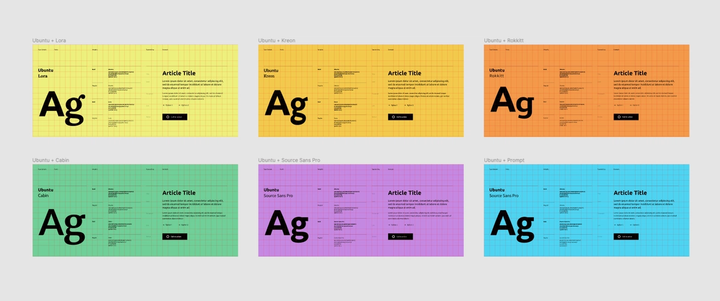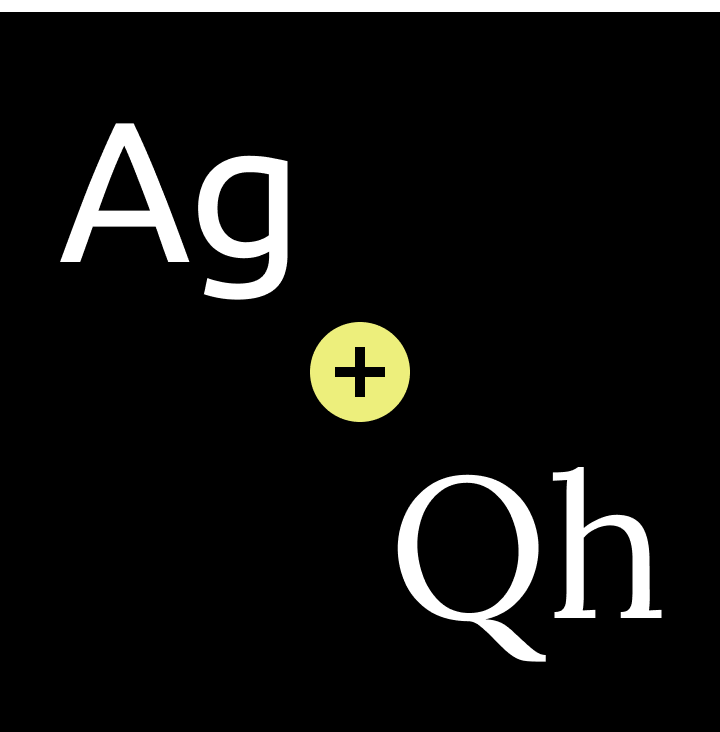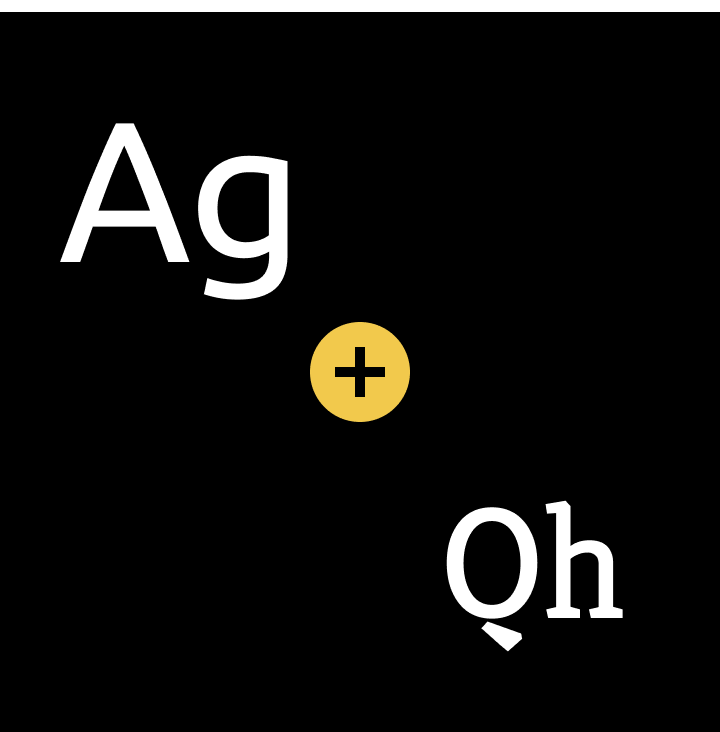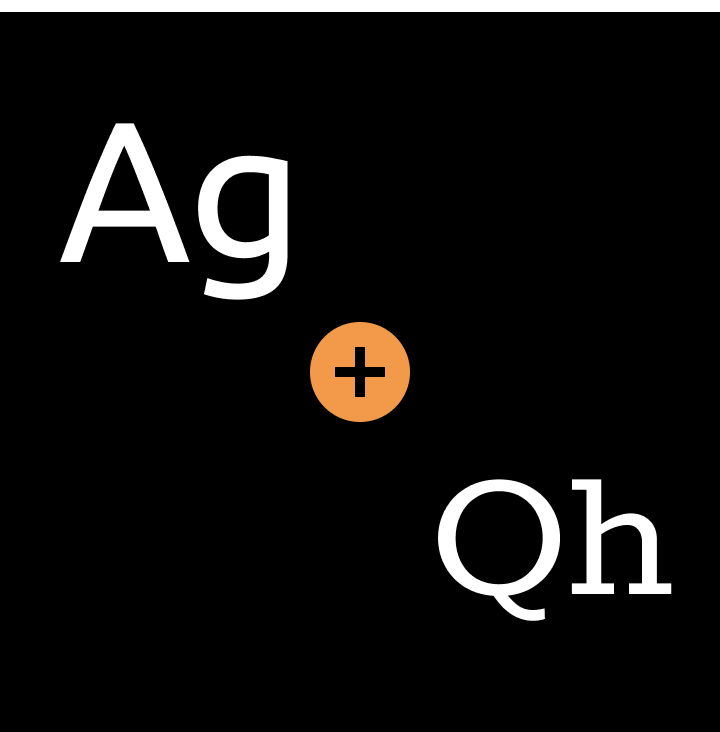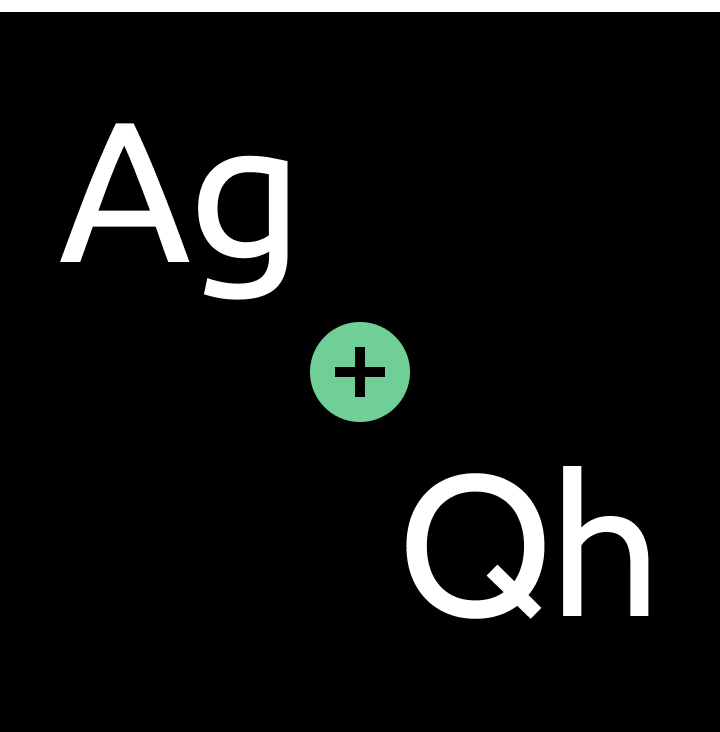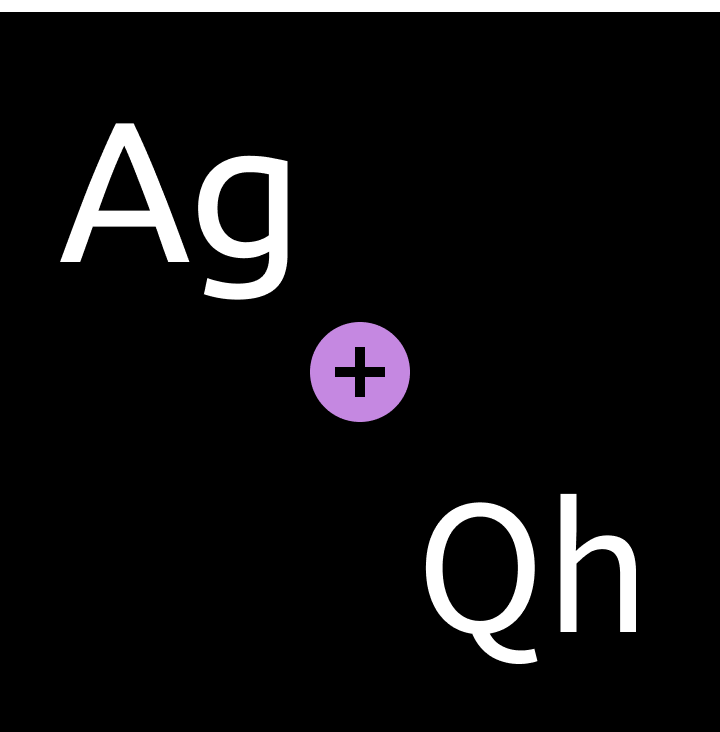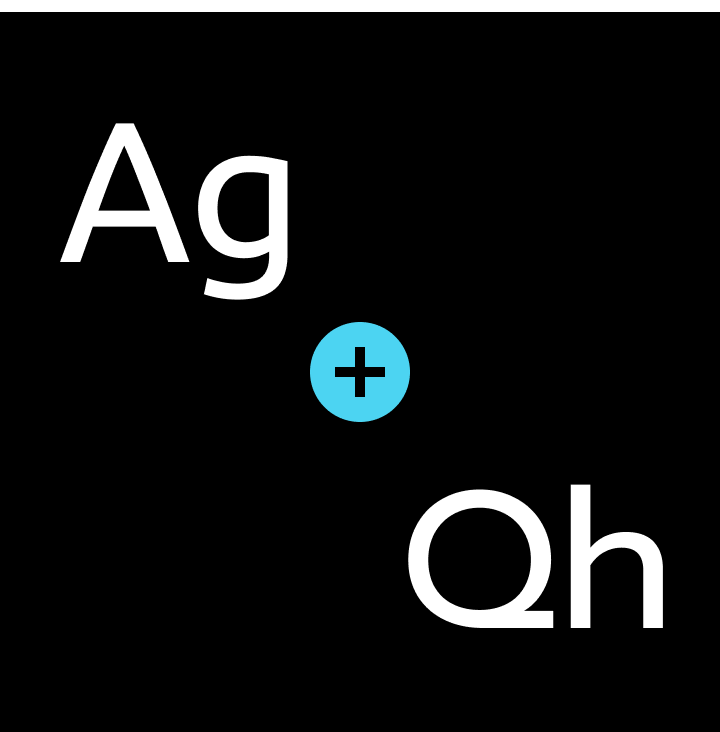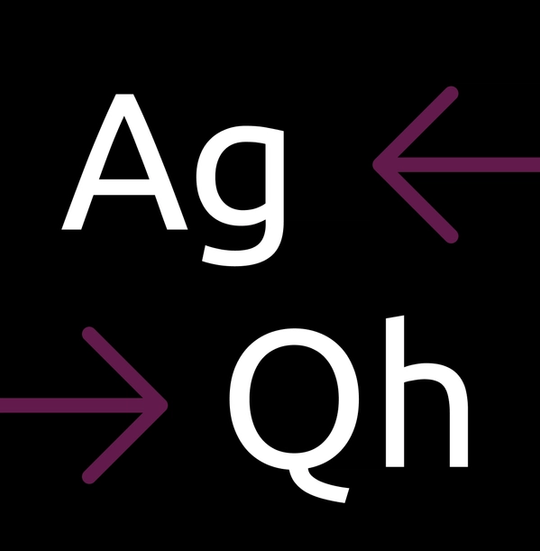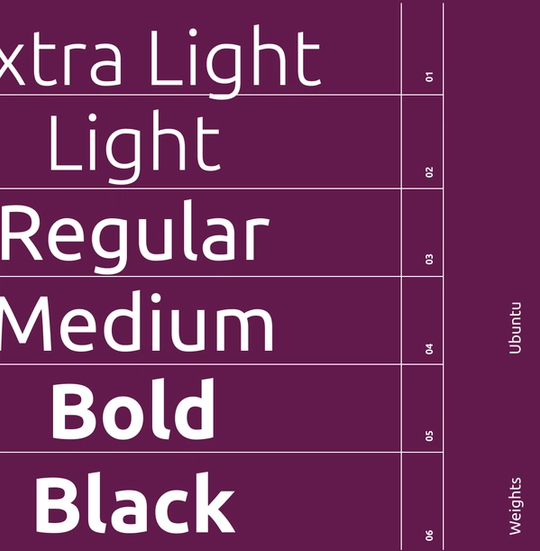
Ubuntu font pairings
The Ubuntu font family is a sans-serif typeface funded by Canonical and developed by Dalton Maag. It pairs well with Rokkit, Lora, Prompt, Kreon, Cabin, and Source Sans Pro.
Ubuntu + Lora
Ubuntu + Kreon
Ubuntu + Rokkitt
Ubuntu + Cabin
Ubuntu + Source Sans Pro
Ubuntu + Prompt
About Ubuntu
Ubuntu is a sans-serif, OpenType-based humanist typeface. It was developed to be the default font of the Ubuntu operating system, initially released on Ubuntu 10.10. The typeface was developed for clarity on desktop and mobile computing screens, with its spacing and kerning optimised for body copy sizes.
Ubuntu Creator
The Ubuntu Font Family is a set of matching fonts funded by Canonical in 2010-2011 for the Ubuntu operating system. It was designed by London based type foundry Dalton Maag, whose designers included Vincent Connare, the creator of the Comic Sans and Trebuchet MS fonts.
Ubuntu Font Weights
The scope of the Ubuntu Font Family includes all the languages used by the various Ubuntu users around the world. The font is fully Unicode compliant and contains Latin A and B extended character sets, Greek polytonic, and Cyrillic extended. The font family includes a total of thirteen fonts, consisting of Regular, Light, Medium, Monospaced, and Condensed versions.